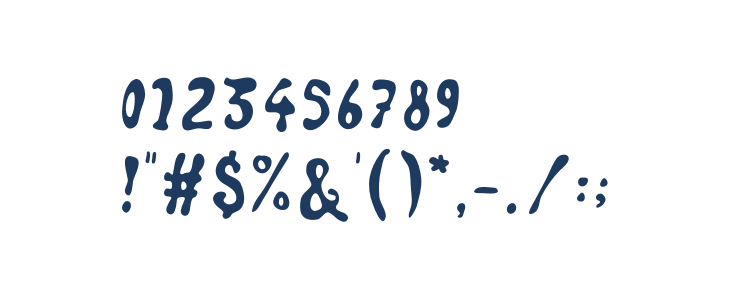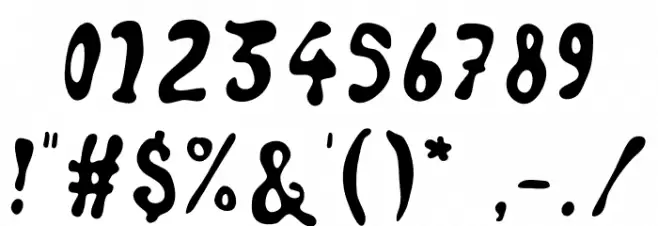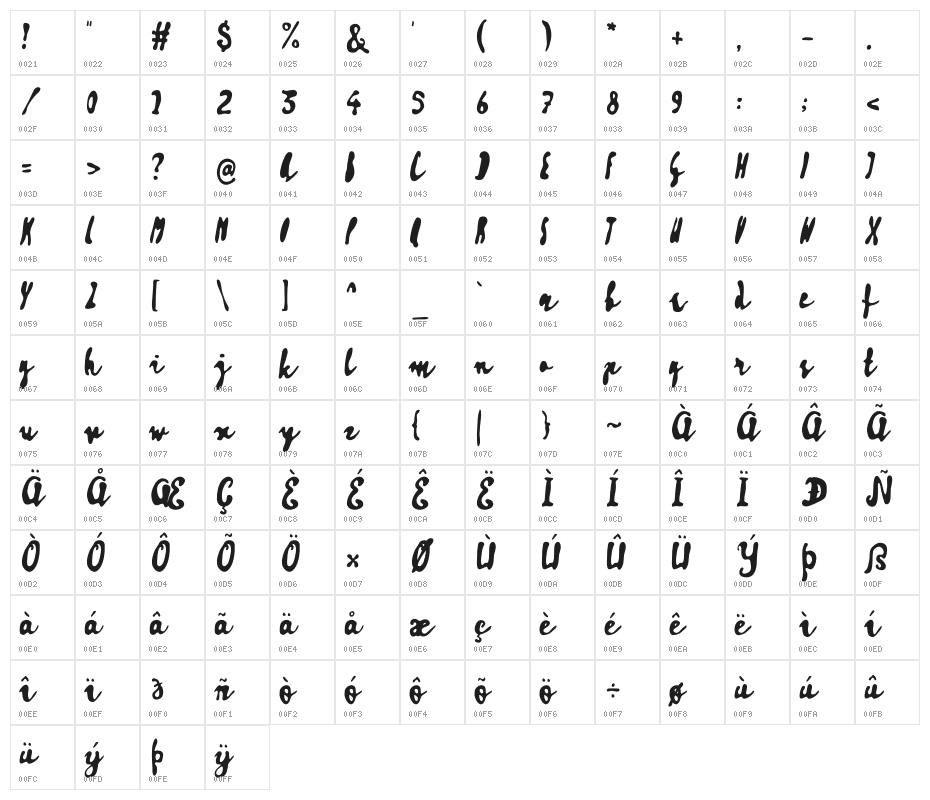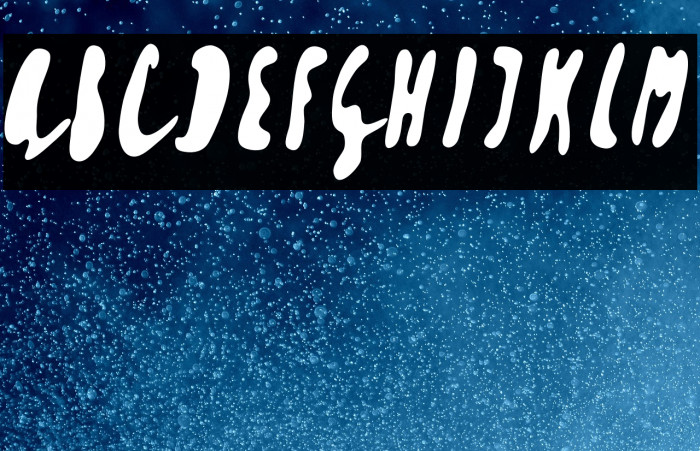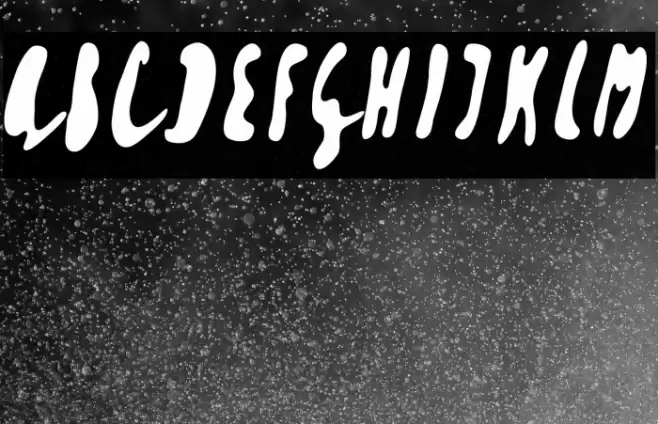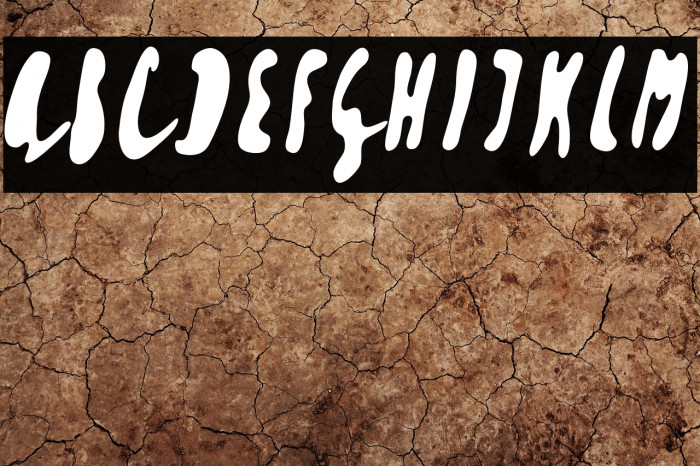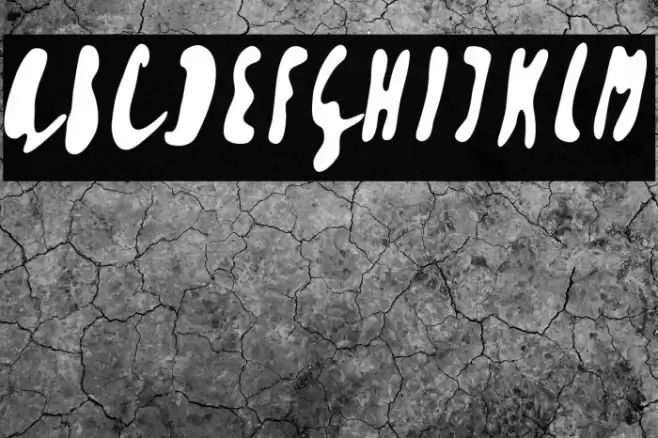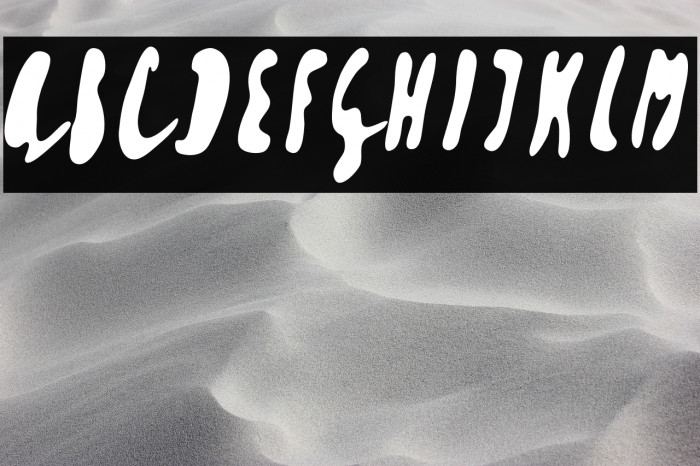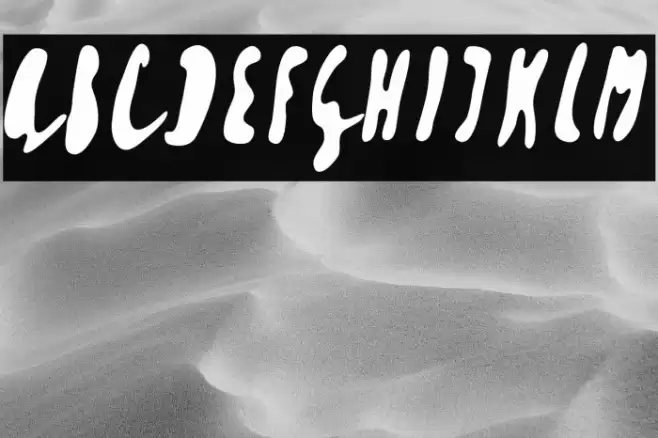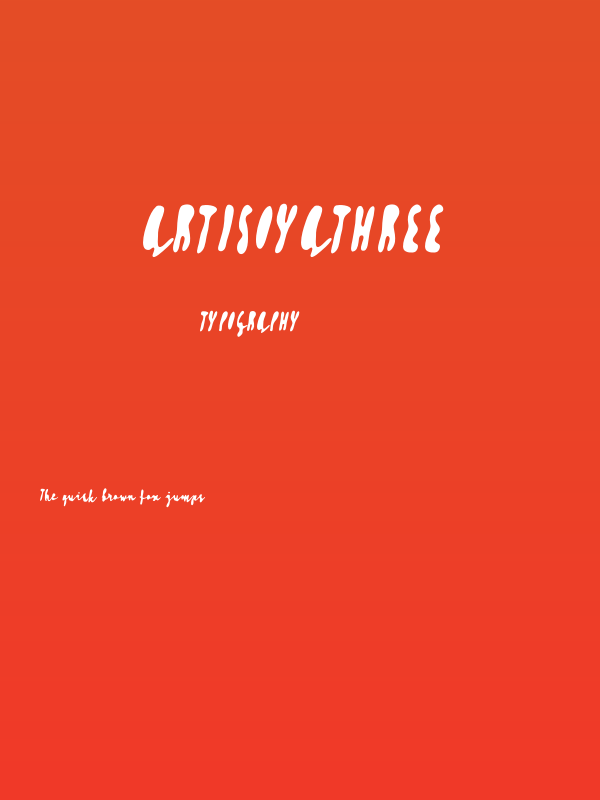
ArtisoyaThree Font
ArtisoyaThree Description
This font features a bold, expressive style with a handwritten appearance. The letters are thick and have a fluid, organic shape, giving them a dynamic and energetic feel. The uppercase characters are bold and slightly condensed, while the lowercase letters maintain a consistent flow with a more cursive influence. The numbers are equally bold, matching the overall aesthetic of the font. Special characters are creatively integrated, maintaining the same bold and fluid style. This font's unique character makes it stand out, perfect for projects that require a personal touch.
| Proposed Projects | Ideal for branding, posters, invitations, and any project needing a personal, artistic touch. |